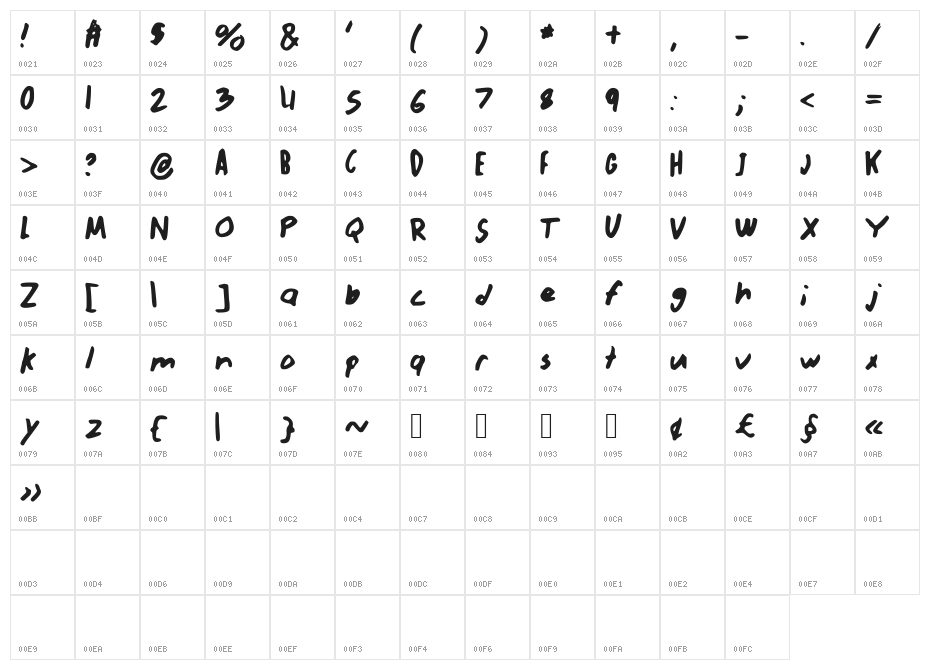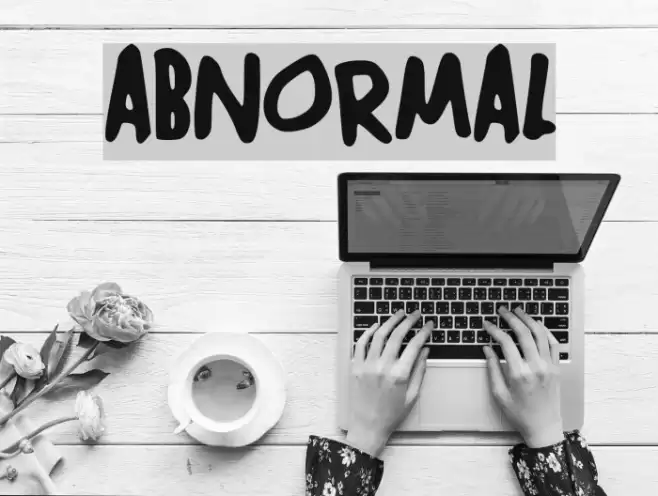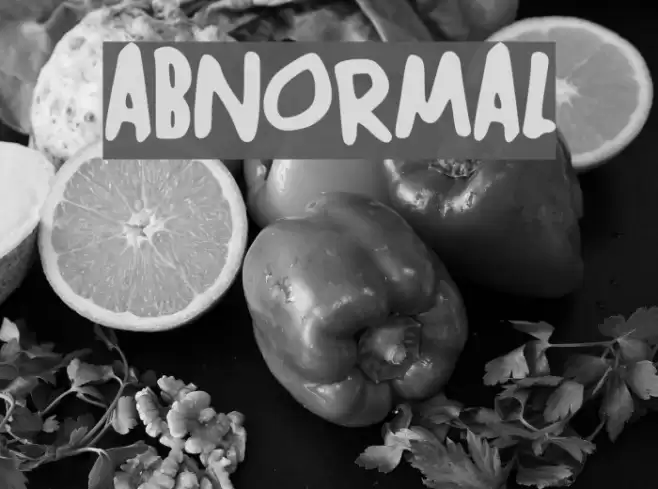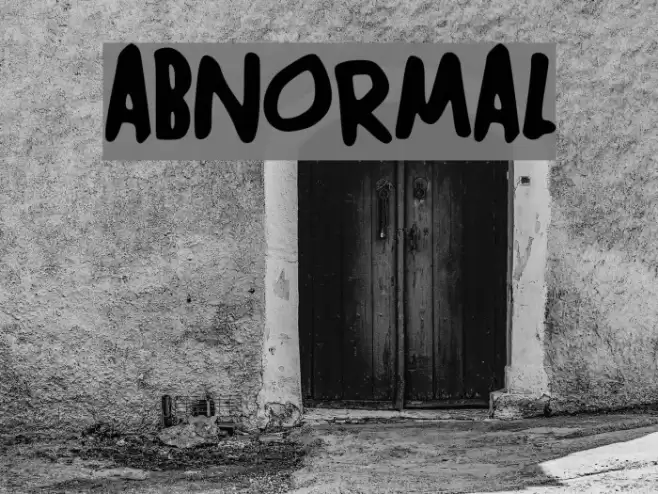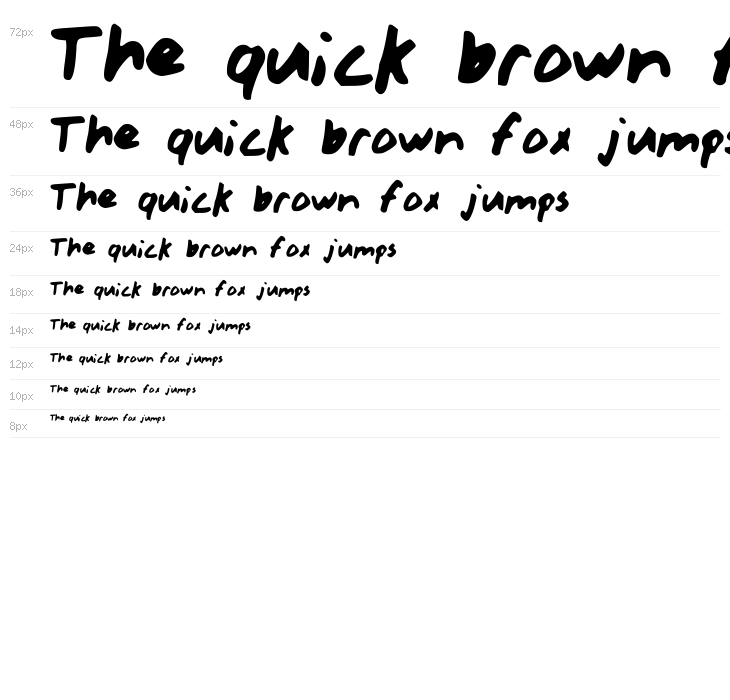
ABNORMAL Font
ABNORMAL Description
This font exudes a playful and casual vibe, characterized by its bold and uneven strokes that mimic a handwritten style. The letters are slightly irregular, giving it a dynamic and energetic feel. The uppercase and lowercase letters maintain a consistent style, with rounded edges and a sense of movement. The numbers and special characters follow the same whimsical design, making the font suitable for creative and informal applications. Its bold presence ensures readability while adding a touch of personality to any text.
| Overall Style | Casual and Playful |
| Proposed Projects | Ideal for children's books, creative posters, casual branding, and playful social media graphics. |